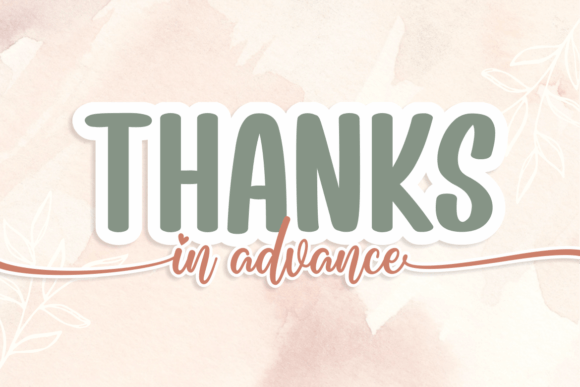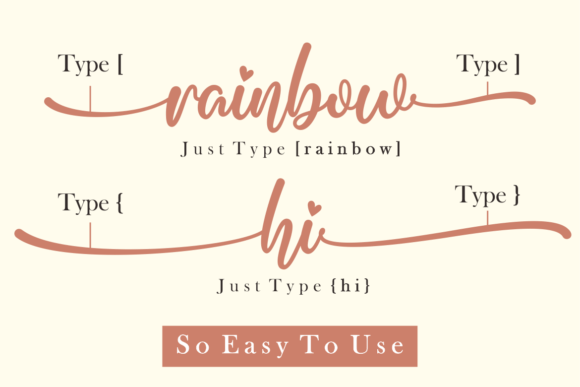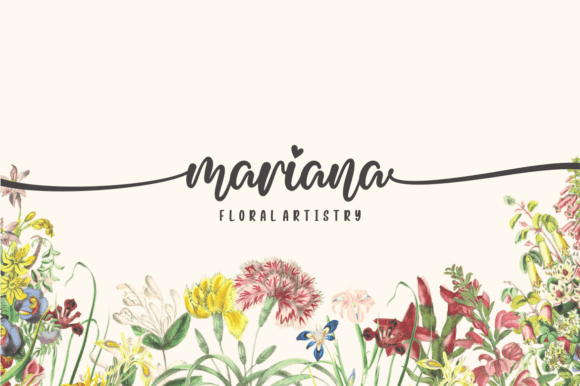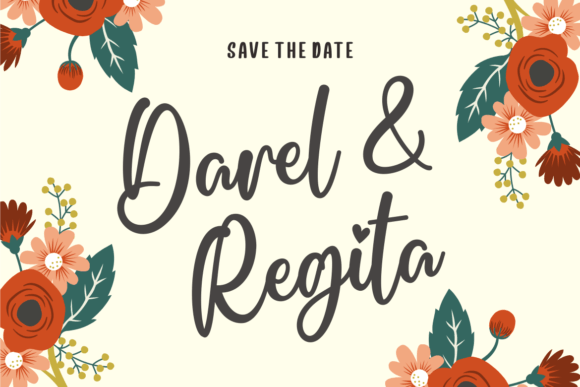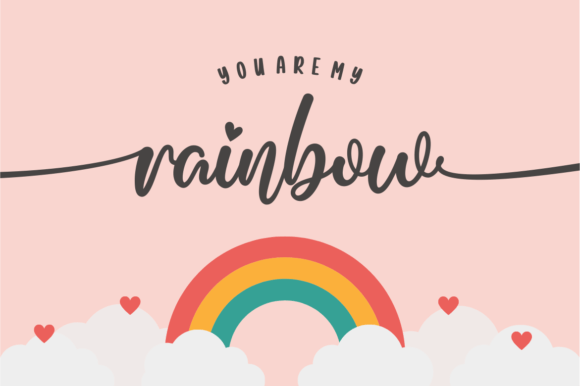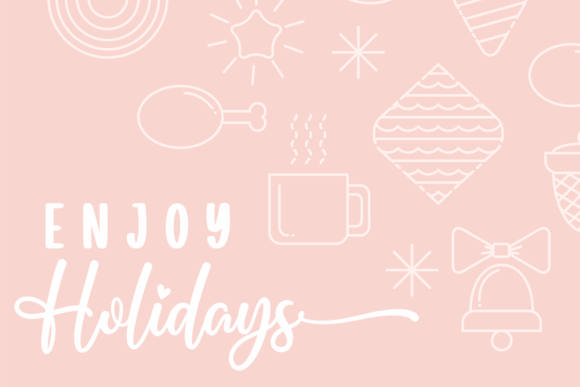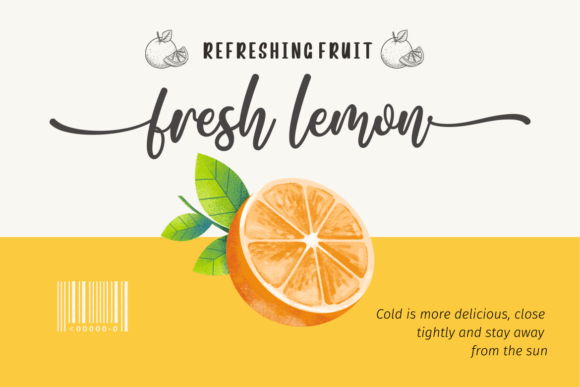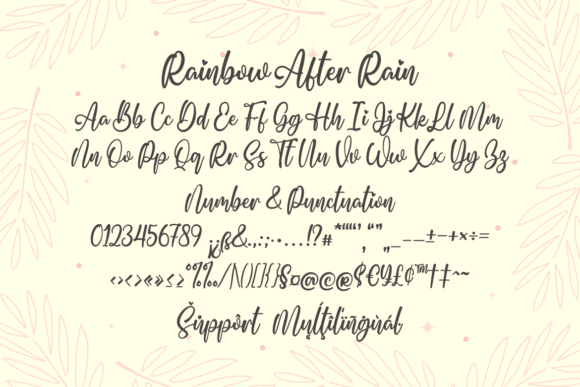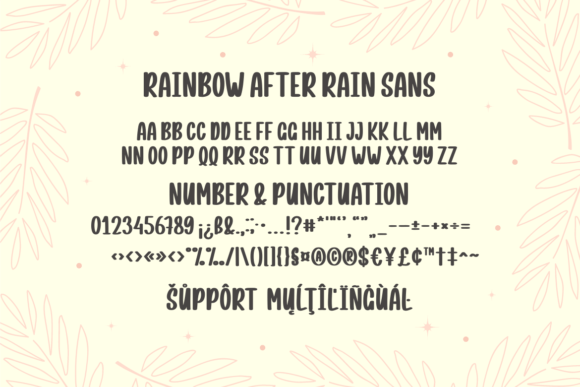
Rainbow After Rain Font
About Rainbow After Rain Font
Rainbow After Rain Duo is not just a font; it’s a stylish and delicate pairing of script and sans-serif fonts, bringing a harmonious blend to a wide spectrum of creative applications. From enchanting greeting cards to captivating headlines, this duo ensures a romantic touch graces each of your creations.
The script font exudes elegance and a handcrafted charm, adding a personal and artistic feel to your designs. Whether you’re crafting heartfelt messages or designing romantic invitations, the script font from the Rainbow After Rain Duo enhances the emotional impact, creating a truly special atmosphere.
The sans-serif font, on the other hand, provides a clean and modern counterpart, offering versatility in its application. From bold headlines to sleek branding, the sans-serif font complements the script with a contemporary touch, allowing you to achieve a well-balanced and visually appealing composition.
What sets Rainbow After Rain Duo apart is not just its aesthetic appeal but also its functionality. PUA encoding ensures easy access to an array of glyphs and swashes, providing you with the flexibility to customize and enhance your designs effortlessly. This feature elevates the duo to a creative tool, allowing you to tailor each project with precision and flair.
Imagine the possibilities: charming greeting cards adorned with the script font, eye-catching headlines featuring the sans-serif counterpart, and cohesive designs that seamlessly blend romance with modernity. Rainbow After Rain Duo becomes more than just a font; it becomes a creative ally, ready to bring your visions to life with a touch of style and sophistication.